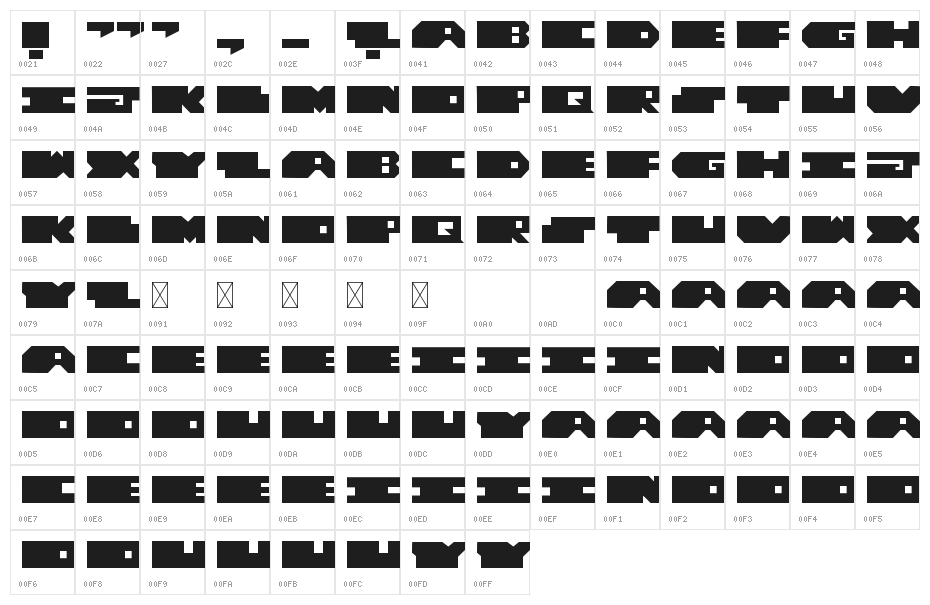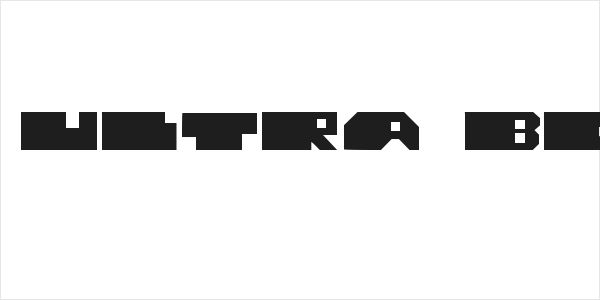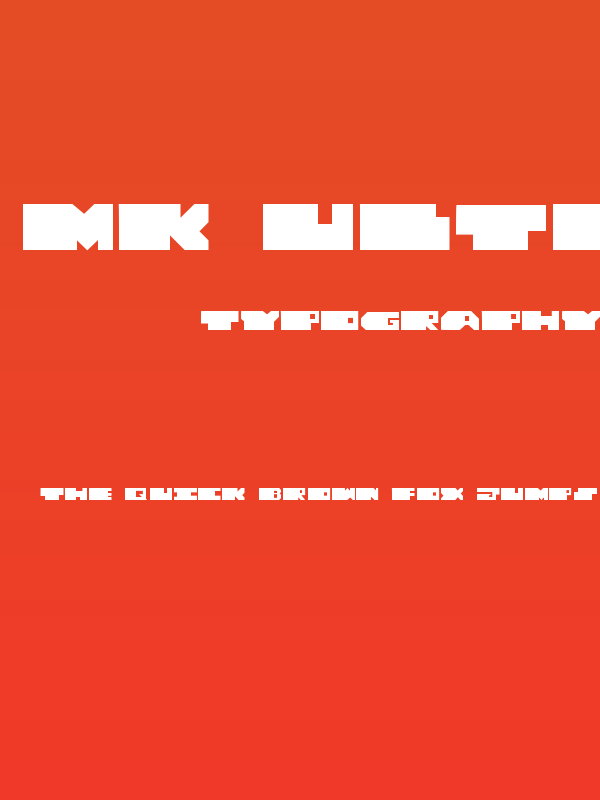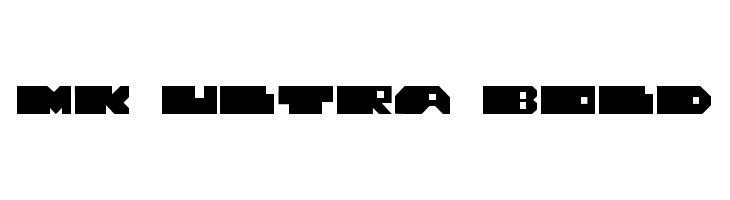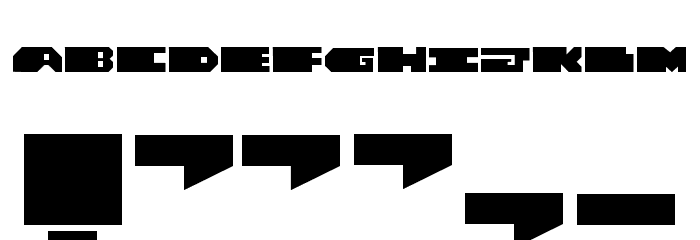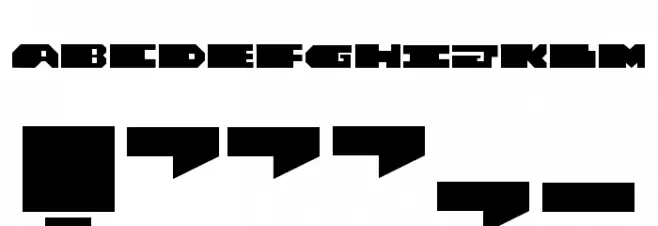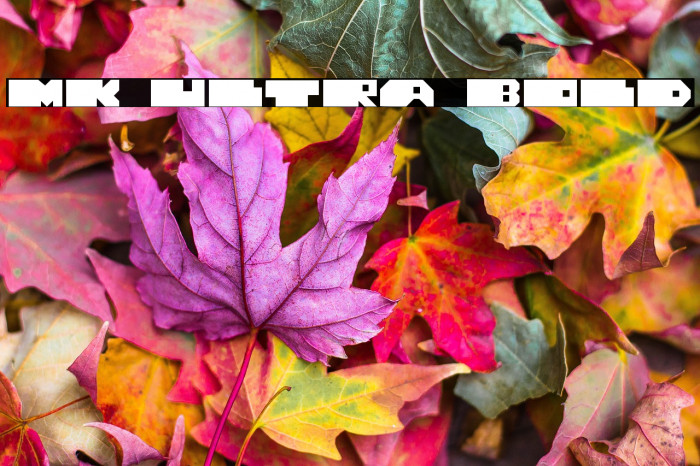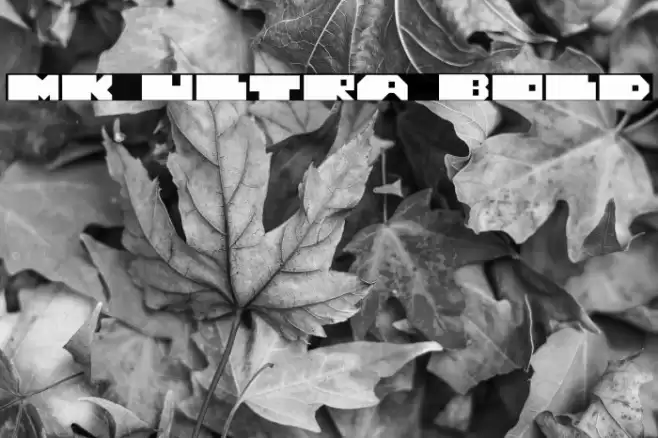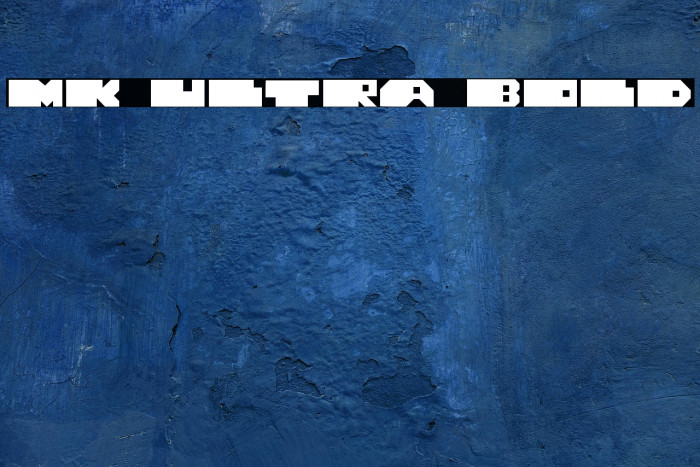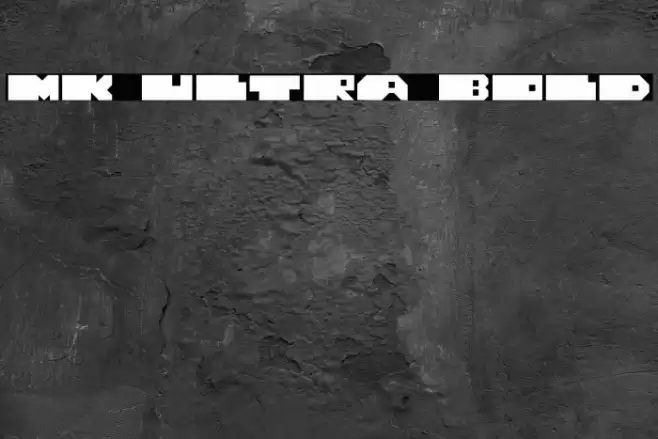
MK ULTRA Bold Font
MK ULTRA Bold Description
This font features a bold, geometric design with a futuristic and industrial feel. The characters are constructed with sharp angles and straight lines, giving them a blocky appearance. The uppercase letters are uniform in height, while the lowercase letters maintain a consistent style, ensuring readability. The numbers and special characters follow the same design principles, making the font cohesive and versatile. Its strong presence makes it ideal for attention-grabbing headlines and logos. The font's unique style is suitable for projects that require a modern and edgy look.
| Use Case | Headlines, Logos |
| Proposed Projects | Ideal for branding, posters, video game graphics, and sci-fi themed projects. |